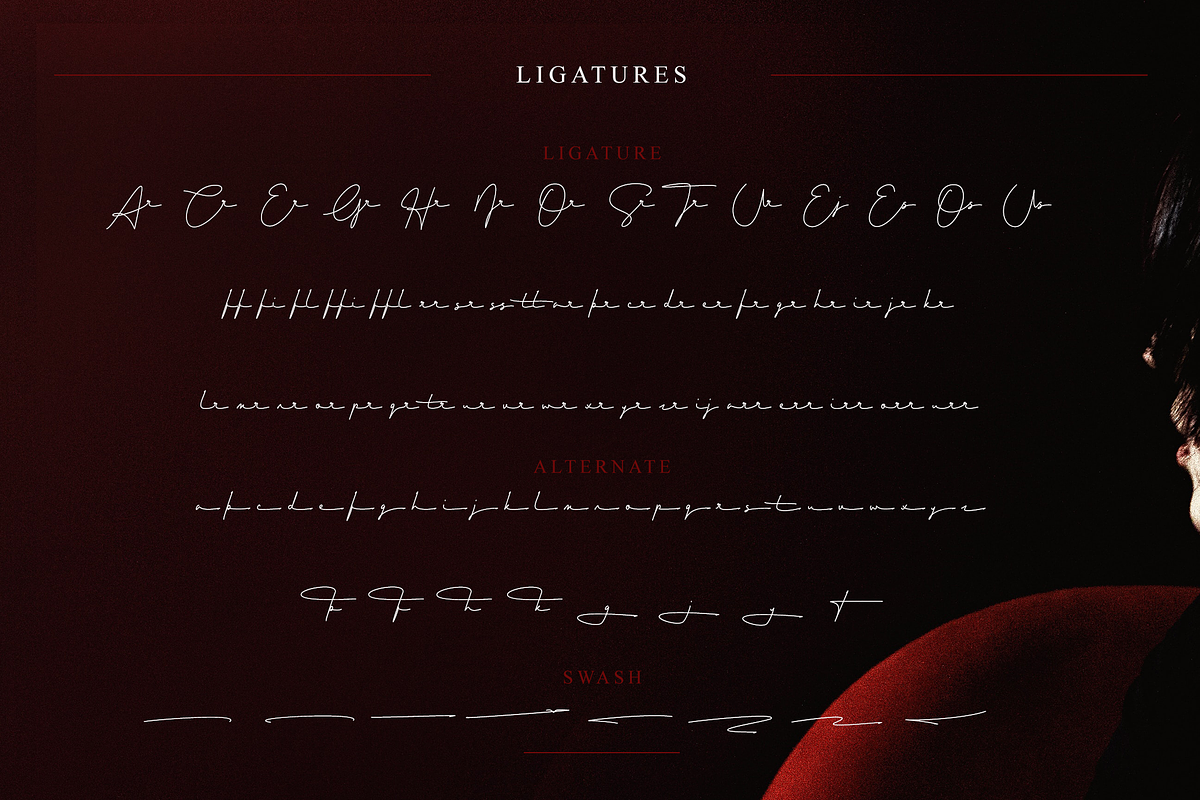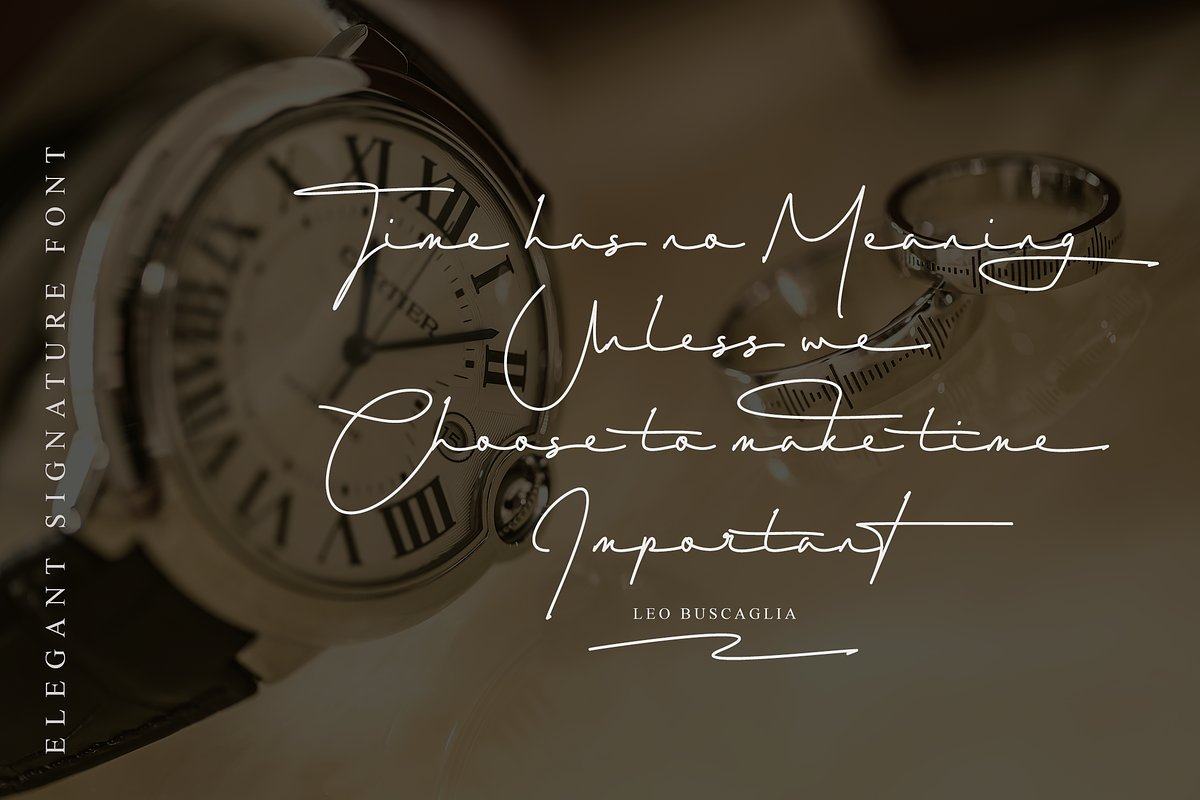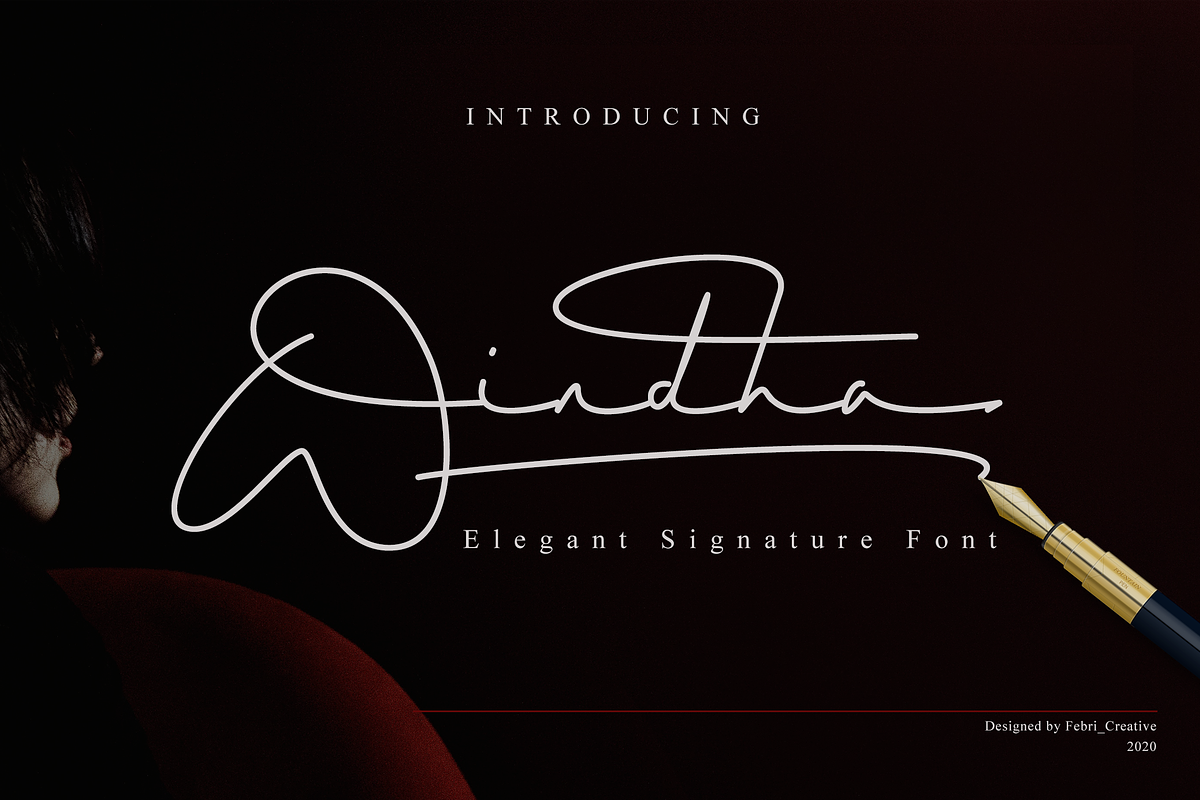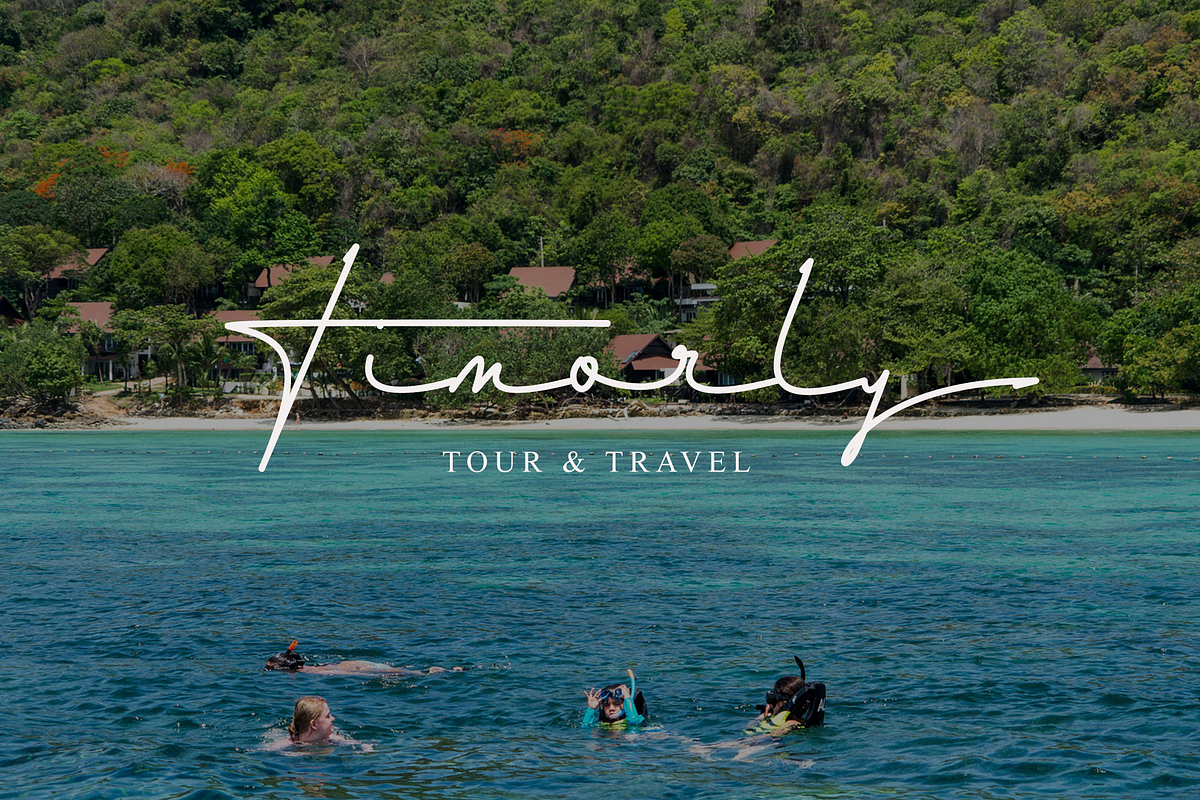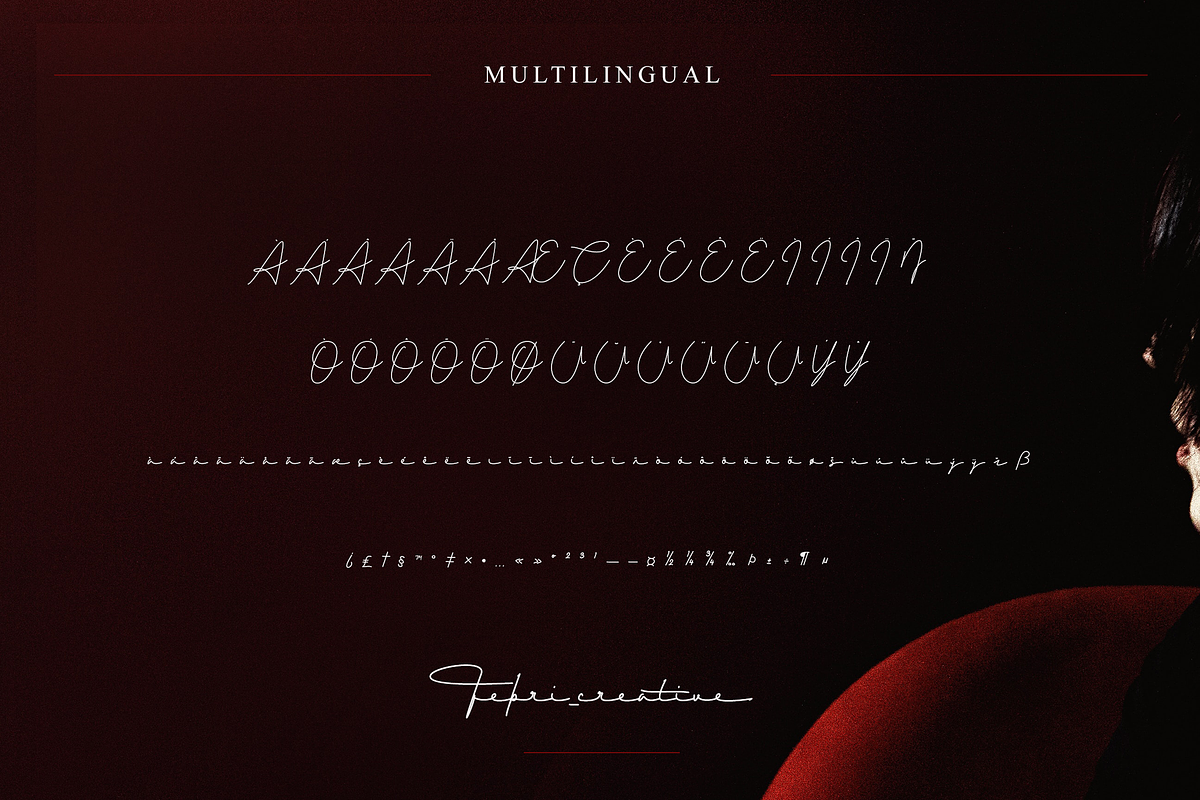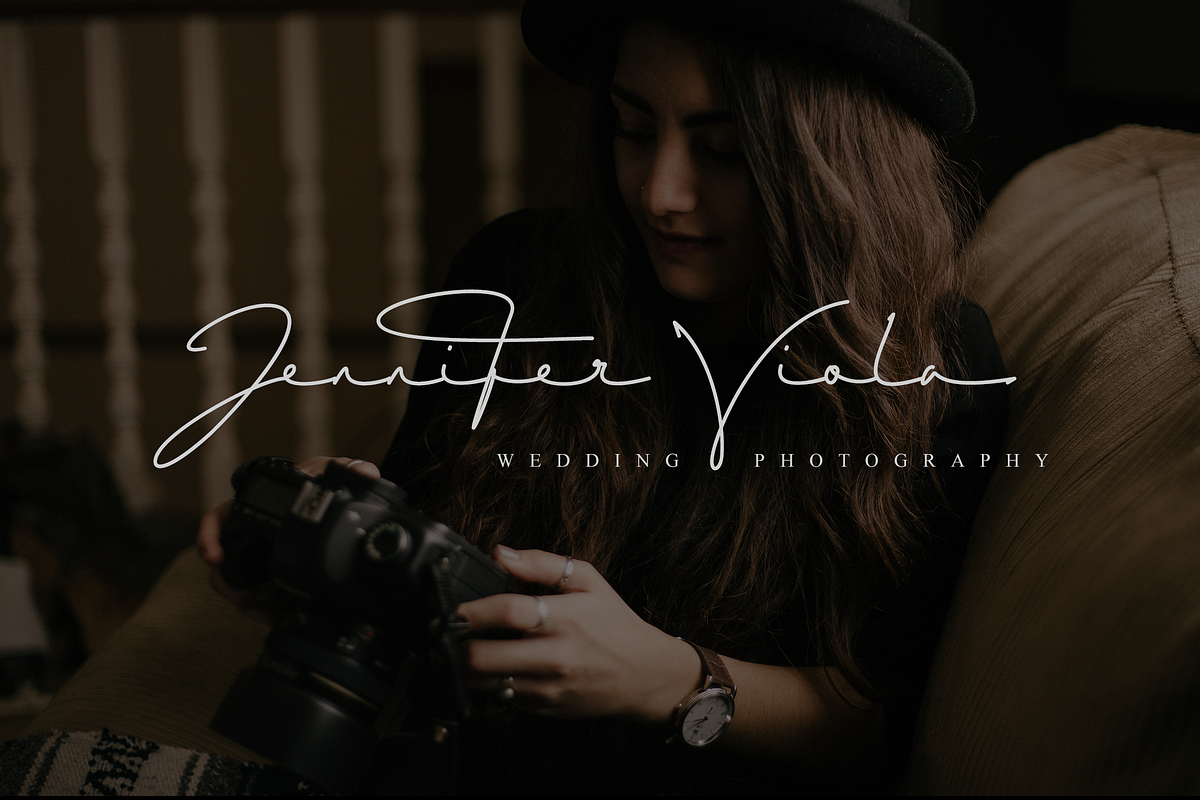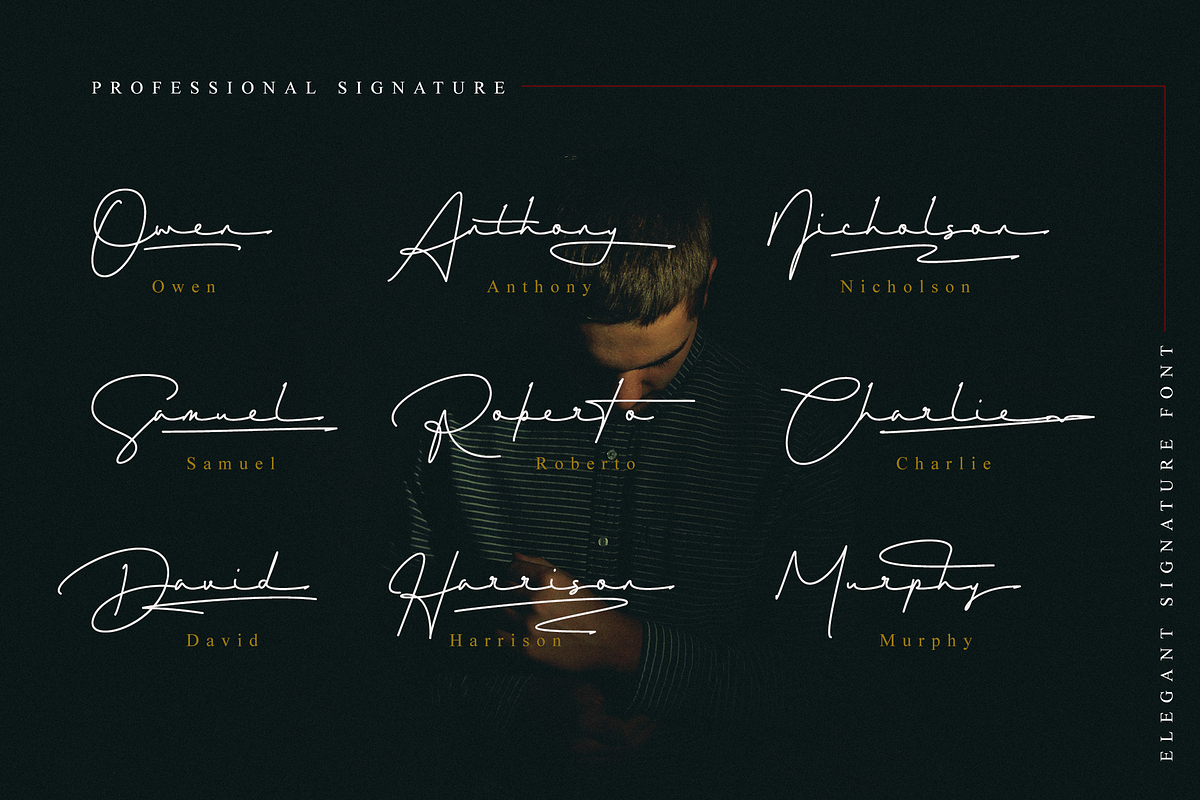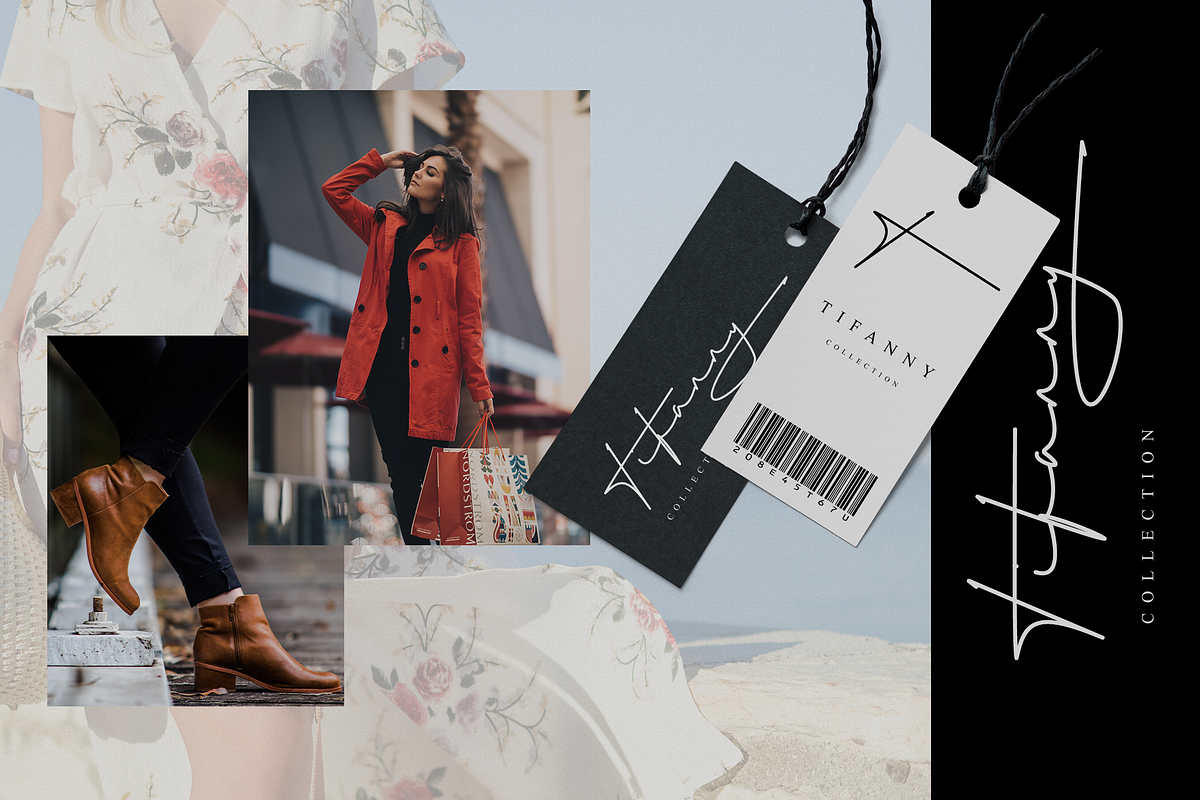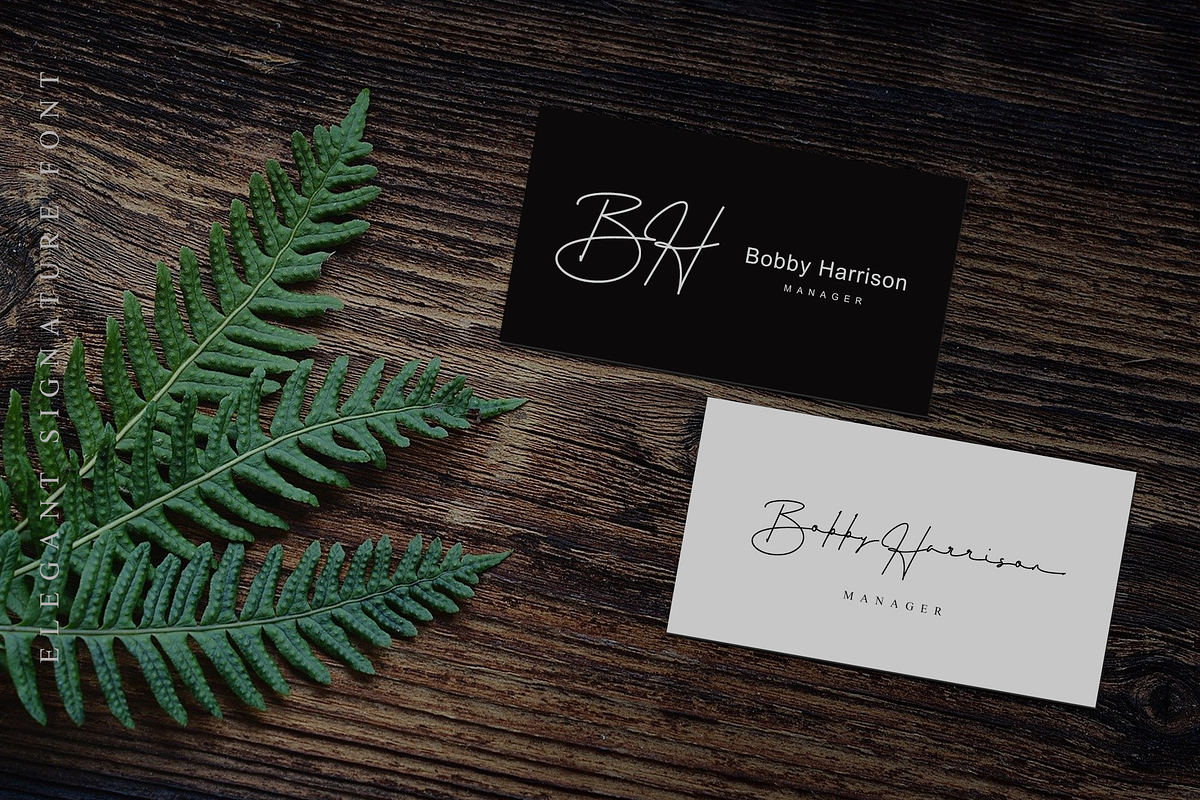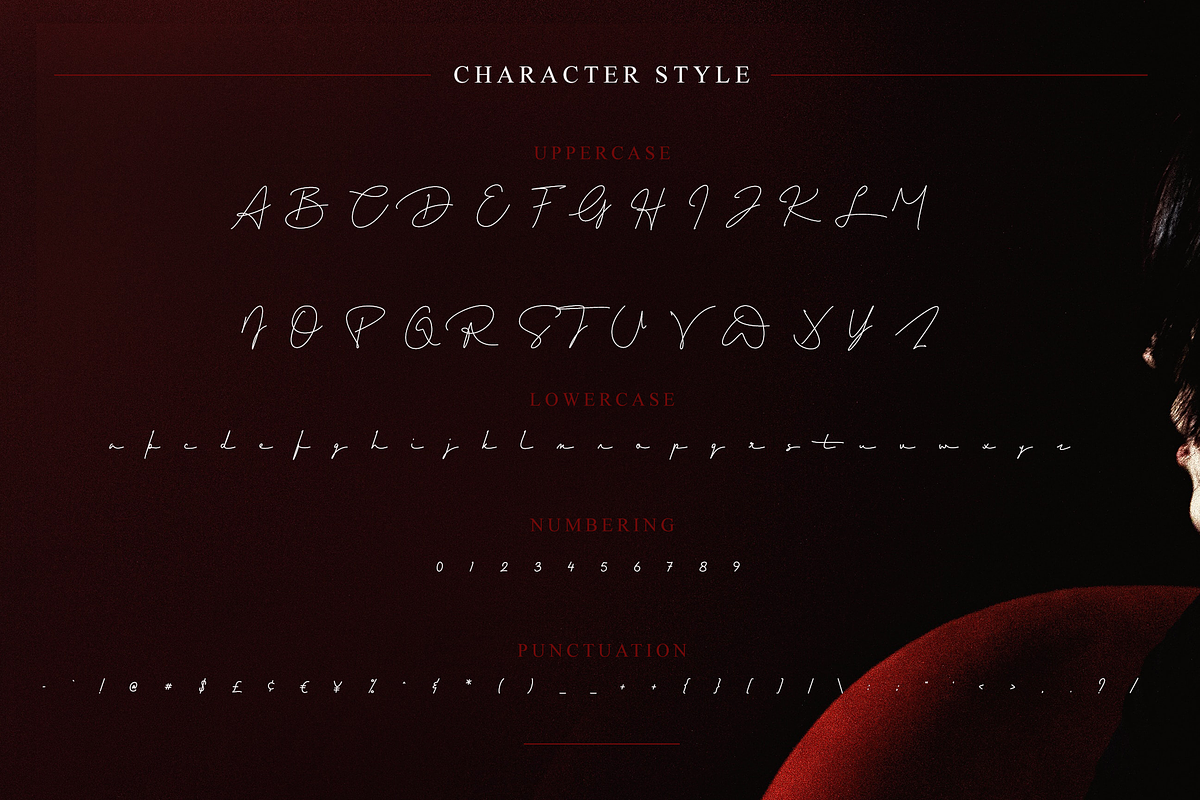
Windha
Windha is a modern and awesome signature font with extraordinary charm. This will change any design idea to be beautiful and perfect! Can be used as a logo, branding, or just writing. It supports multilingual languages, which you can combine into great designs.
- More than 400 of glyphs